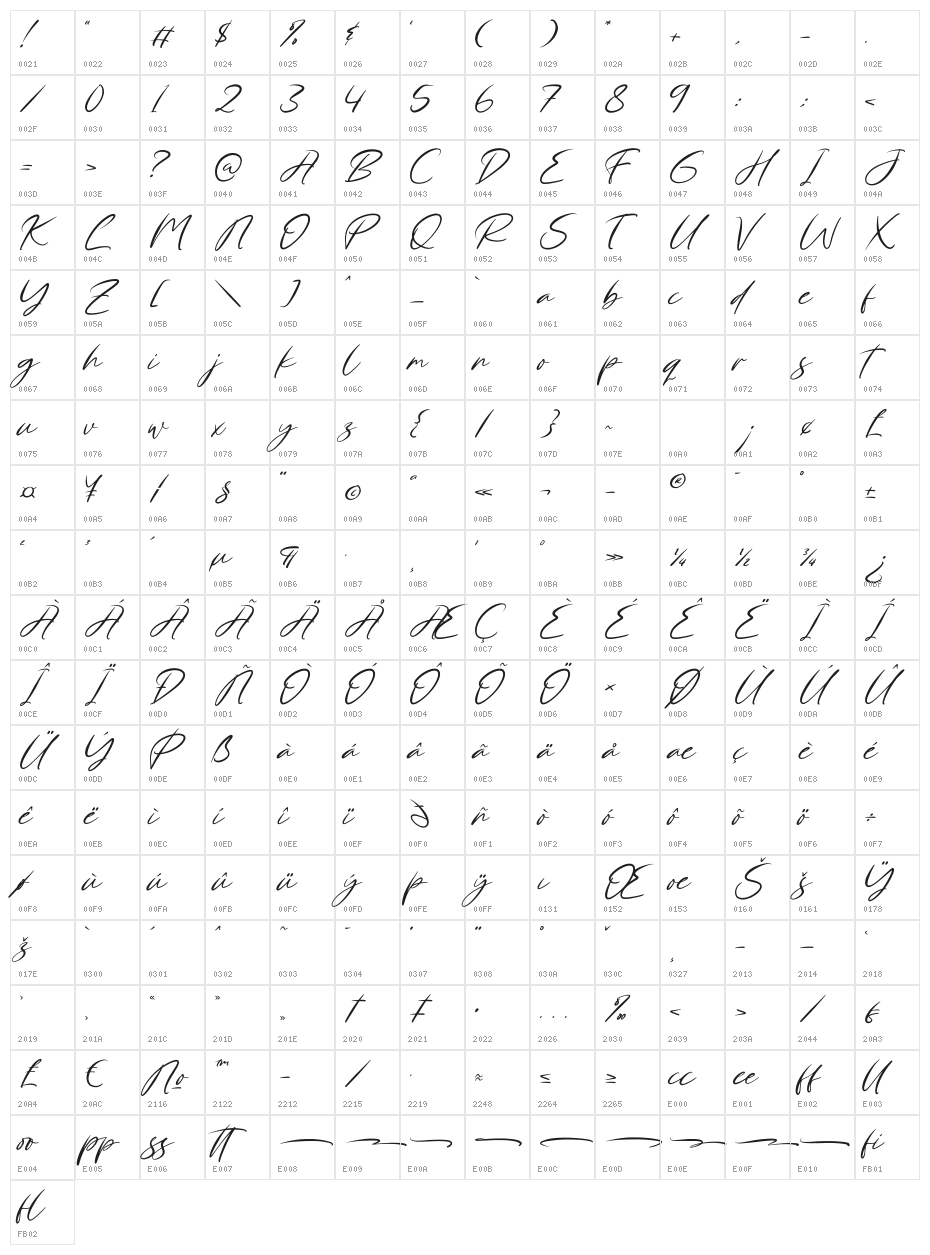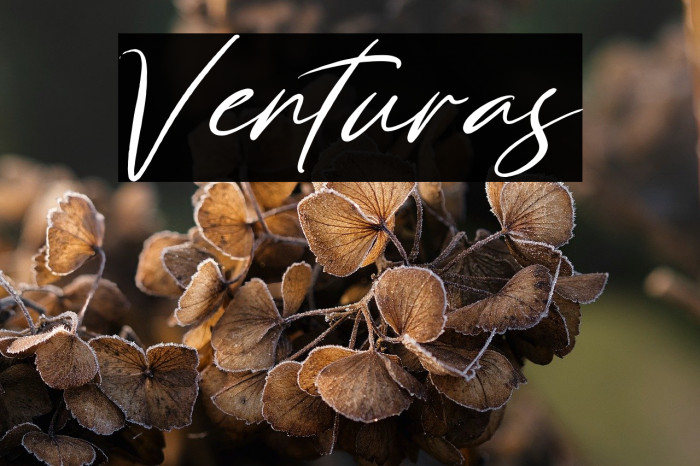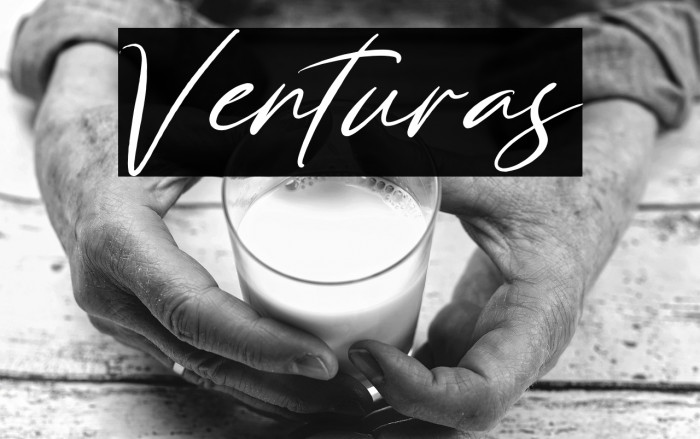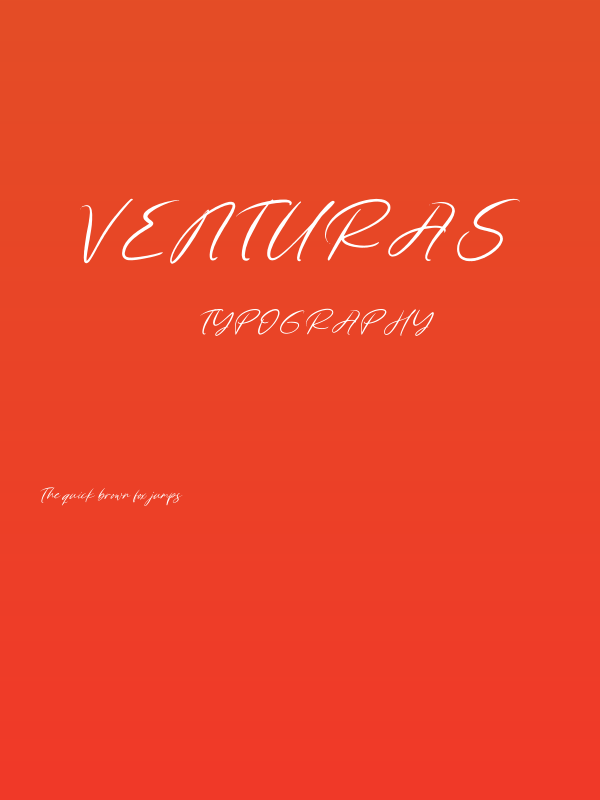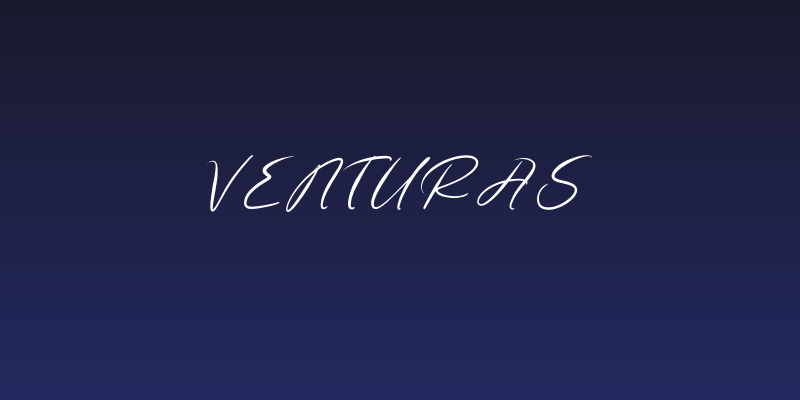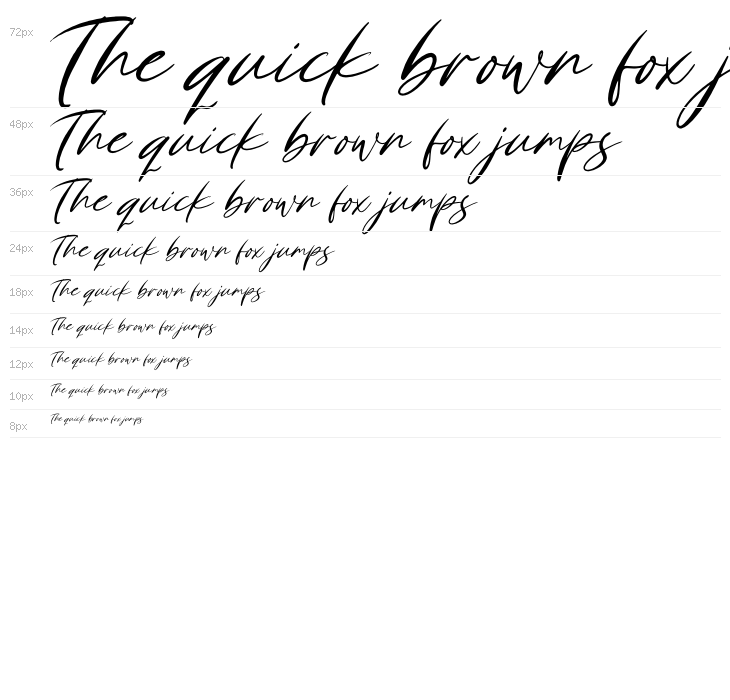
Venturas Font
Venturas Description
A flowing, elegant script font with a handwritten appearance, featuring smooth, connected strokes and a natural, cursive style.
| Overall Style | Elegant, Handwritten |
| Use Case | Logos, Invitations, Greeting cards |
| Proposed Projects | Invitations, greeting cards, branding, and personal projects. |